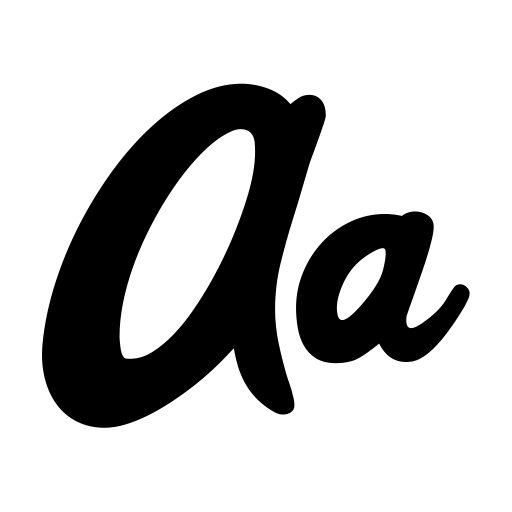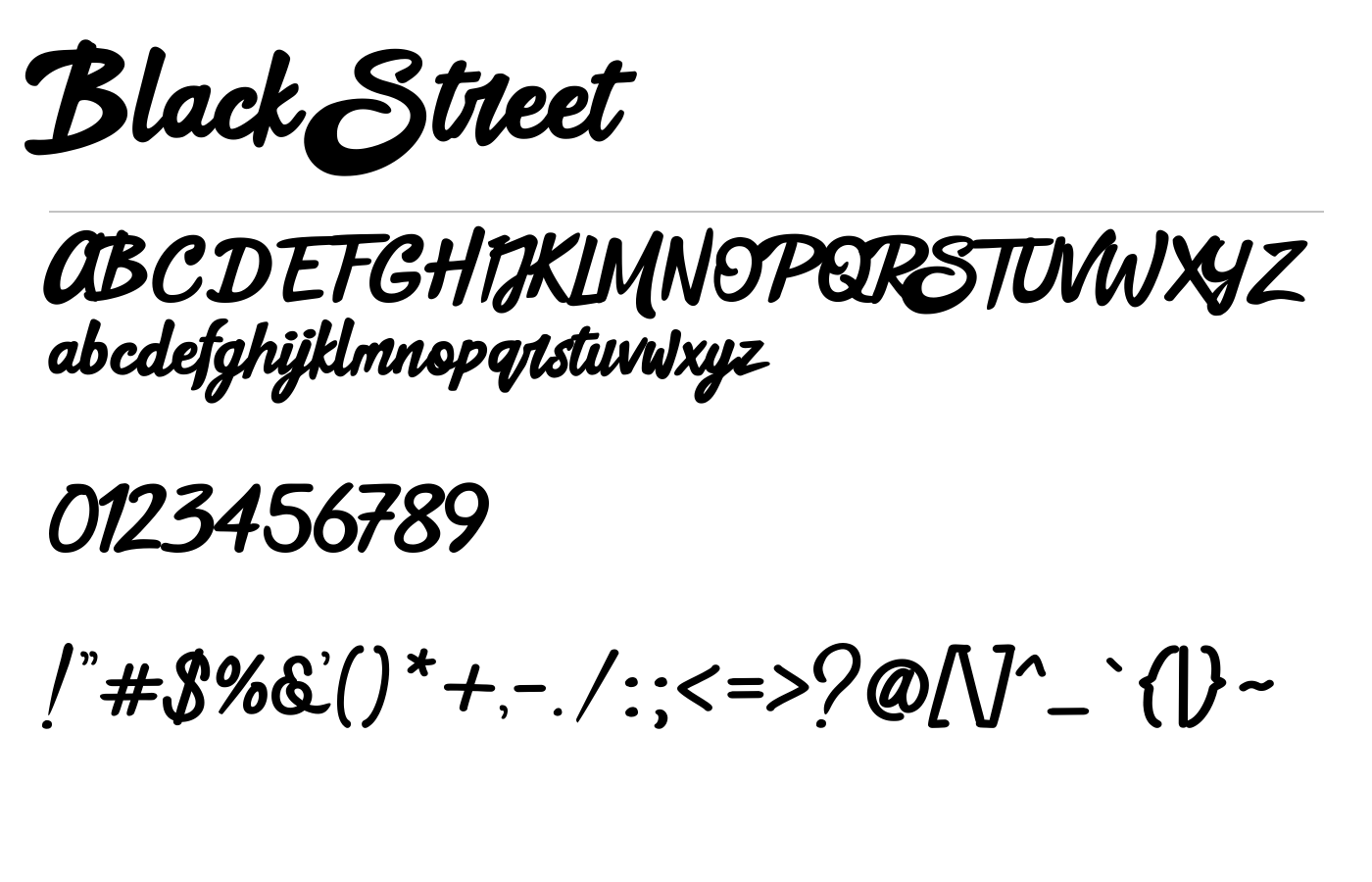
Black Street is a bold, playful script font with a casual, hand-drawn feel. Its thick strokes and smooth, flowing curves create an energetic and lively style, perfect for grabbing attention in branding, logos, and headlines where a friendly yet strong personality is desired. This font works especially well in creative and urban-themed projects, adding a dynamic and approachable vibe.
Black Street Font
About Black Street Font
| Font family | Black Street Font |
| Designer | Lettersiro 2018 |